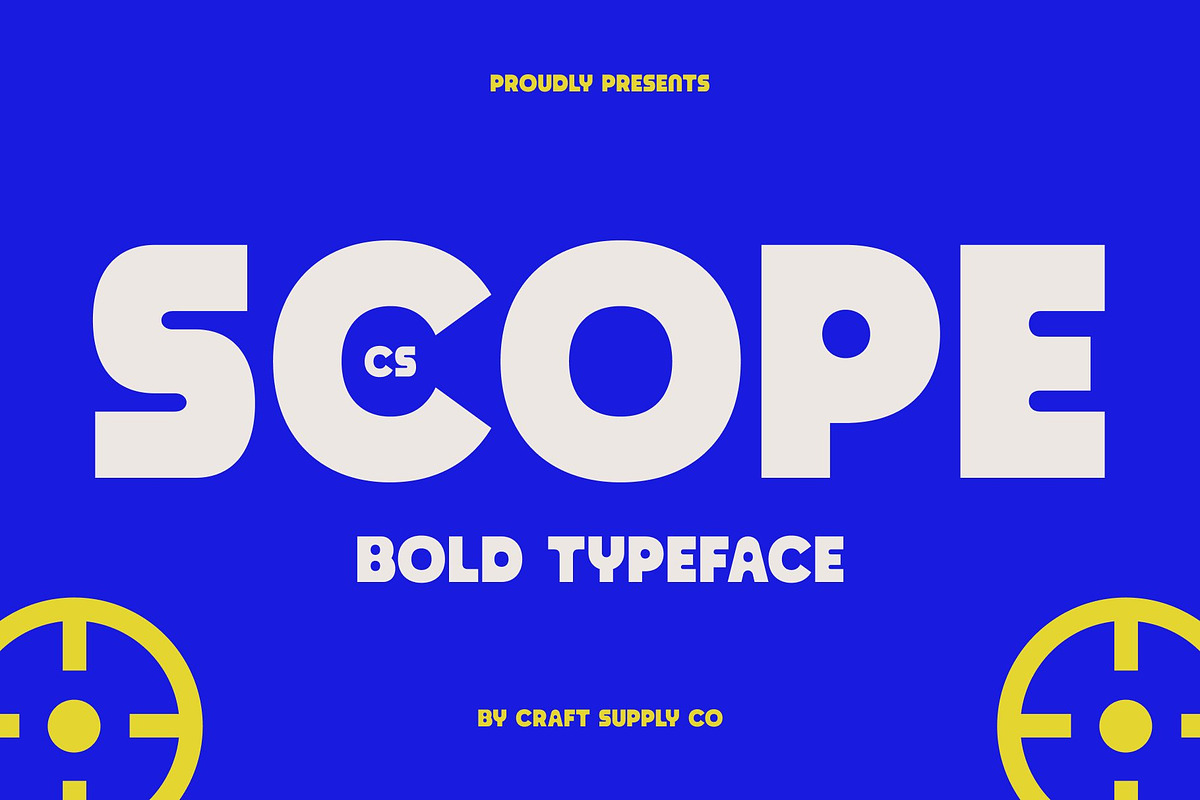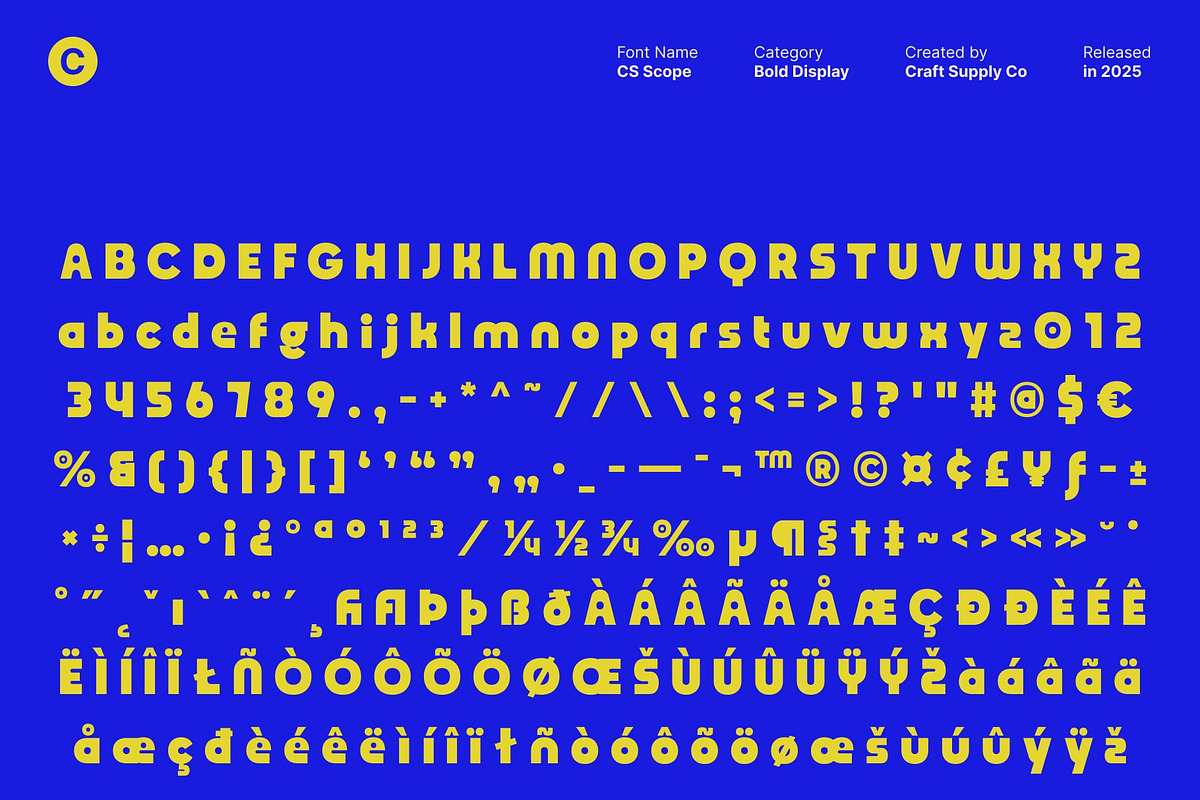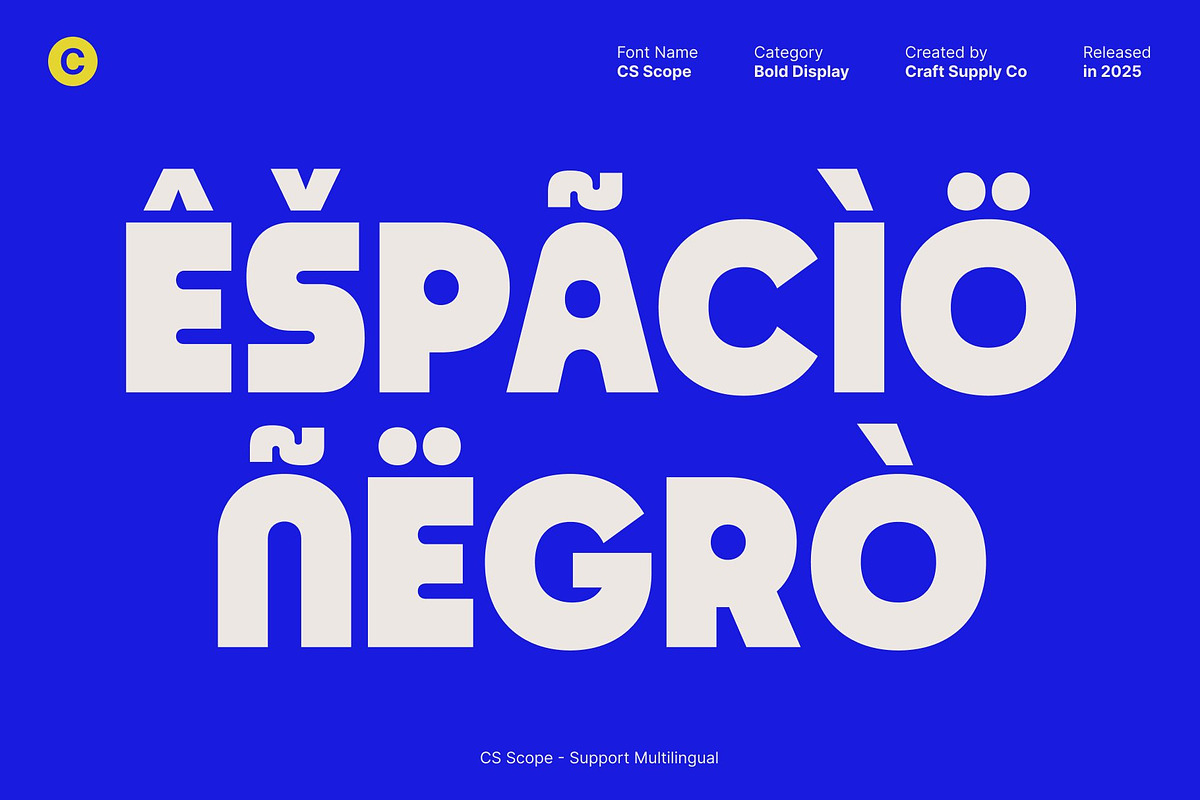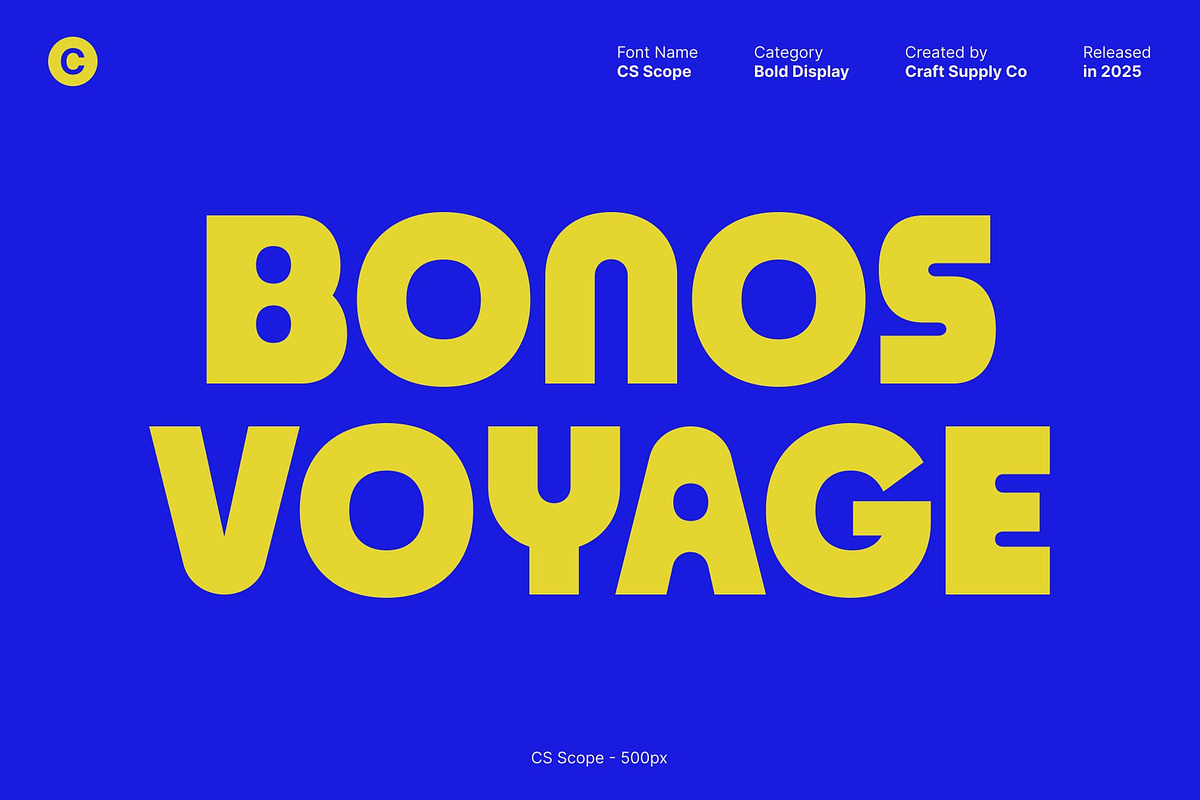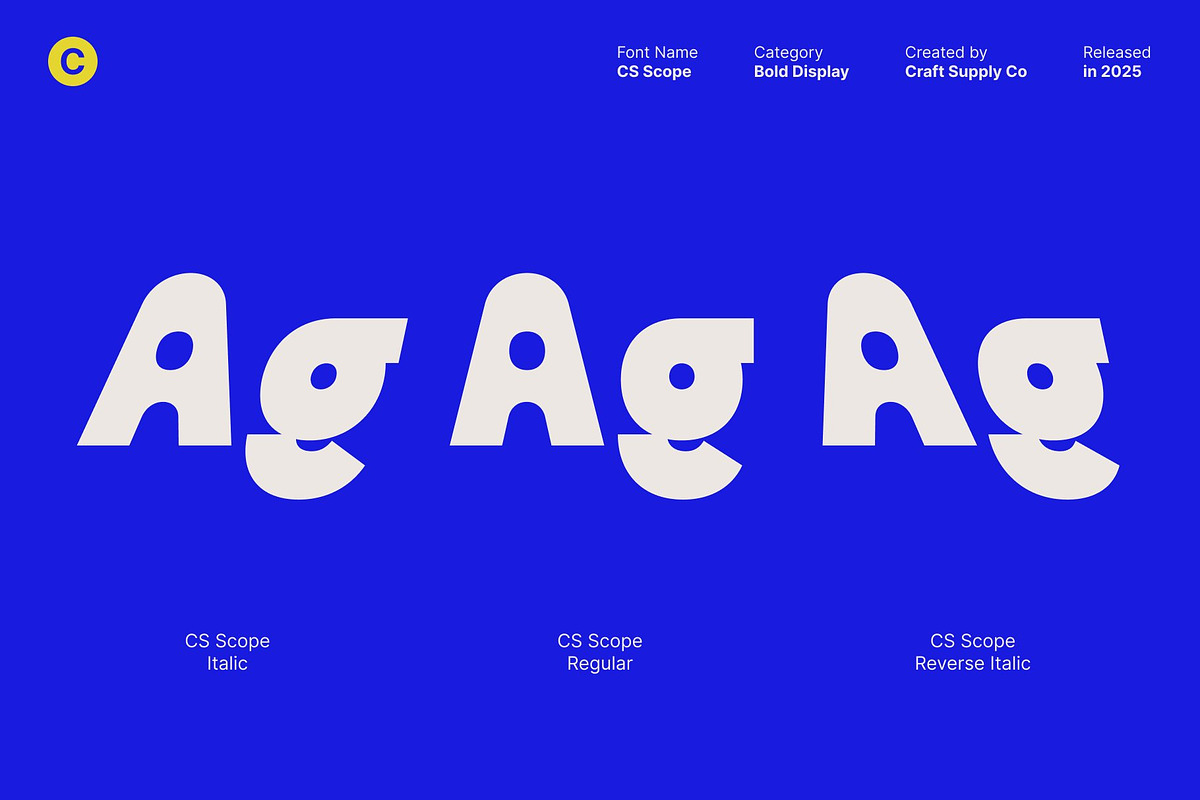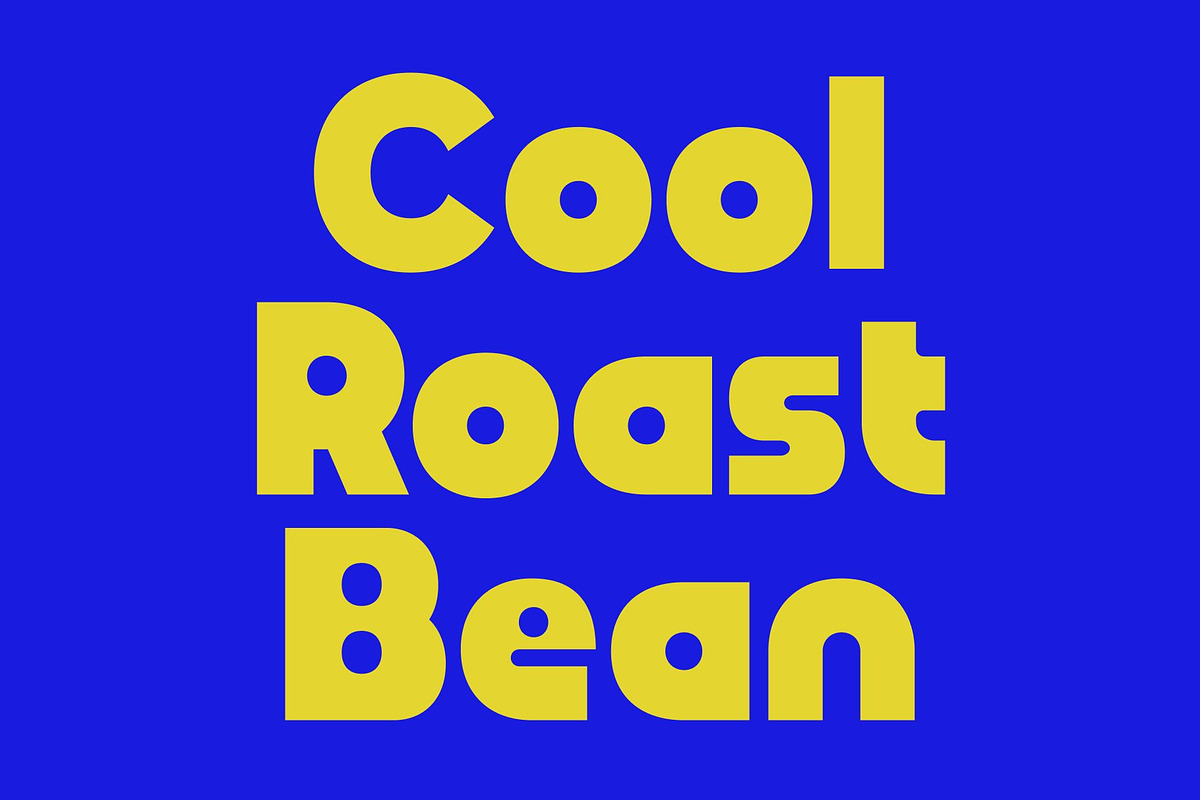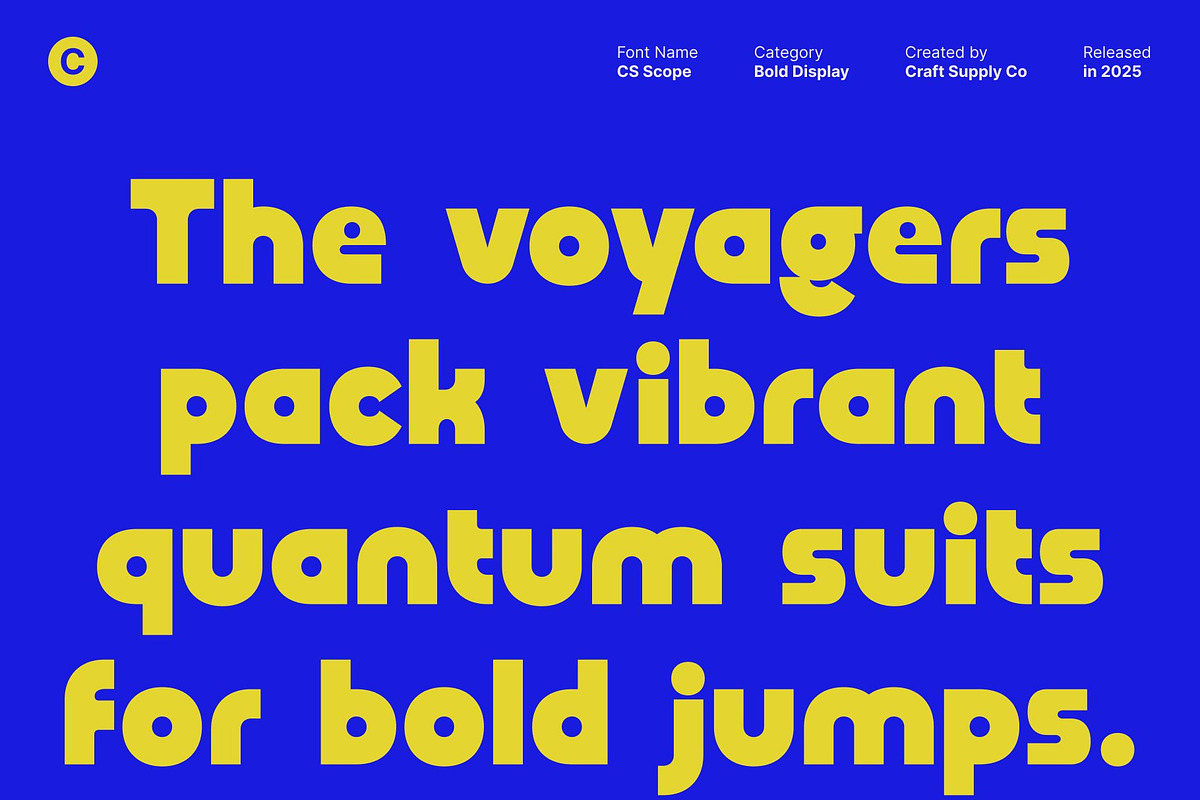
CS Scope – Bold Font
CS Scope – Bold Display Font with Modern Geometric Energy
Bold and Attention-Grabbing Design This is a bold display font built to demand attention. Its strong weight and confident presence make it instantly eye-catching, ensuring your message stands out at first glance. Designed with clarity and impact in mind, this font delivers bold typography that feels powerful and unmistakable.
Modern Geometry with Friendly Character Defined by clean geometric shapes and modern construction, this font balances structure with approachability. Its rounded details and playful proportions give the font a fun, fresh, and friendly personality, preventing it from feeling rigid or overly technical. The result is a bold typeface that feels energetic and inviting.
Fresh, Fun, and Engaging Style This font brings a cheerful and contemporary vibe to any design. Its lively character makes text feel engaging and positive, ideal for projects that want to connect with audiences in a modern, approachable way. The font’s bold forms ensure high readability while keeping a playful edge.
Perfect for Posters, Headlines, and Branding Designed for high-impact use, this font excels in posters, headlines, logos, and strong branding projects. Whether used in print or digital media, it delivers bold presence, modern style, and friendly energy making it a versatile display font for standout creative designs.
- CS Scope Regular
- CS Scope Italic
- CS Scope Reverse Italic